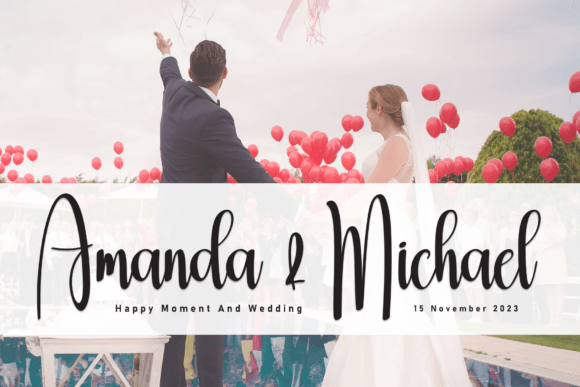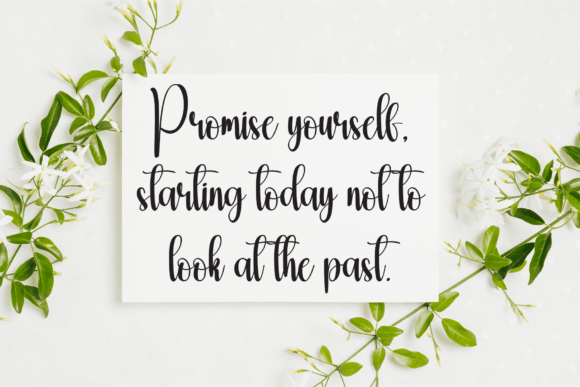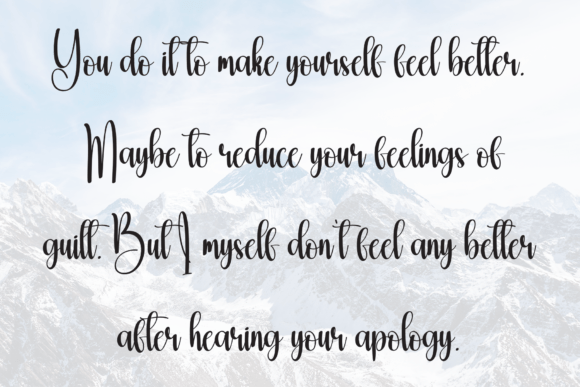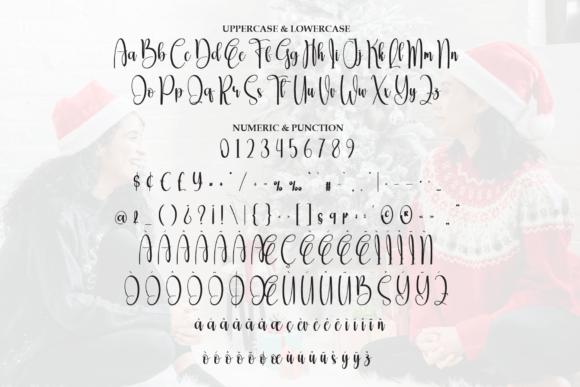
Introduction to Enjoy Christmas Font
As the holiday season approaches, many designers find themselves searching for the perfect font to add a touch of festive cheer to their creative projects. Have you ever found yourself browsing through font collections, only to stumble upon the perfect one – the Enjoy Christmas Font? This sweet and friendly handwritten font is a treasure trove of creative possibilities, and we’re excited to dive into its world.
Whether you’re crafting wedding invitations, designing holiday cards, or working on any other project that requires a dash of holiday magic, the Enjoy Christmas Font is an ideal choice. Its cute yet versatile design makes it a valuable resource for designers seeking high-quality fonts to elevate their work. In this article, we’ll explore the world of Enjoy Christmas Font and discover why it’s a must-have for any design enthusiast.
Key Features of Enjoy Christmas Font
- High-quality, professional design suitable for various creative projects, including holiday-themed advertisements and promotional materials.
- Transparent background allows for seamless integration with any design, providing a clean and elegant look.
- Unique, festive design elements, such as ornaments and holly leaves, add a touch of holiday cheer to any project.
- Can be used as a design resource for creating greeting cards, gift tags, and other holiday-themed materials.
Honest Review: Enjoy Christmas Font
I recently came across the Enjoy Christmas Font, and I’m excited to share my thoughts on this free download. As a designer, I’m always on the lookout for high-quality design resources that can elevate my creative projects.
What works well with the Enjoy Christmas Font is its clean and modern design. The transparent background makes it easy to overlay on any background image or color, giving you a lot of flexibility in your design.
- ✨ Beautiful, modern design
- ✨ Easy to use with transparent background
However, I do have a few limitations to mention. The font is a bit limited in terms of the number of characters, which can make it less suitable for longer text-based projects.
- ⚠️ Limited character set
- ⚠️ Not ideal for longer text-based projects
Overall, I think the Enjoy Christmas Font is a great addition to any designer’s toolkit. While it may not be perfect, its modern design and easy-to-use nature make it a great resource for any creative project.
Tips for Getting the Most Out of Enjoy Christmas Font
Use the Enjoy Christmas Font on a transparent background to create stunning graphics and designs. Experiment with different font sizes, colors, and combinations to add depth and interest to your designs.
The Enjoy Christmas Font is perfect for holiday-themed projects, such as Christmas cards, gift tags, and social media graphics. You can also use it to create festive posters, banners, and other promotional materials.